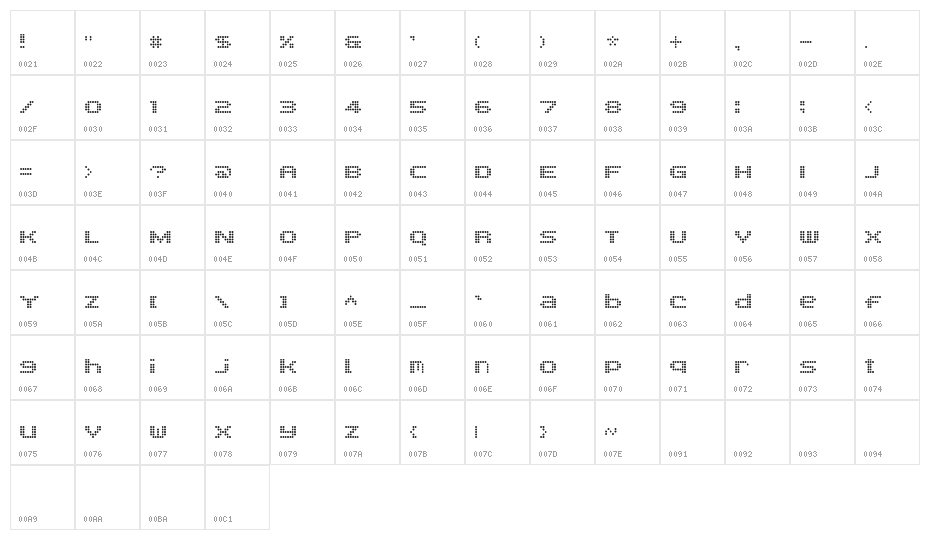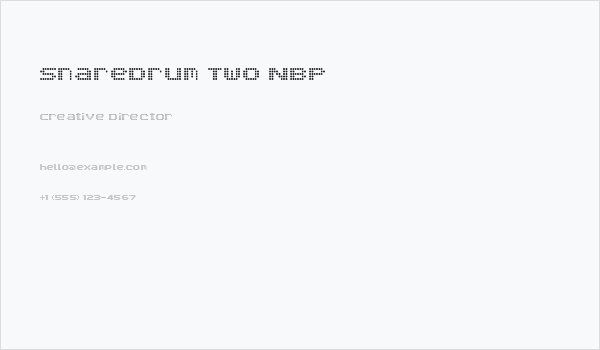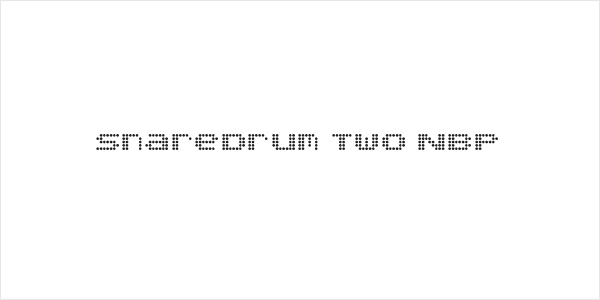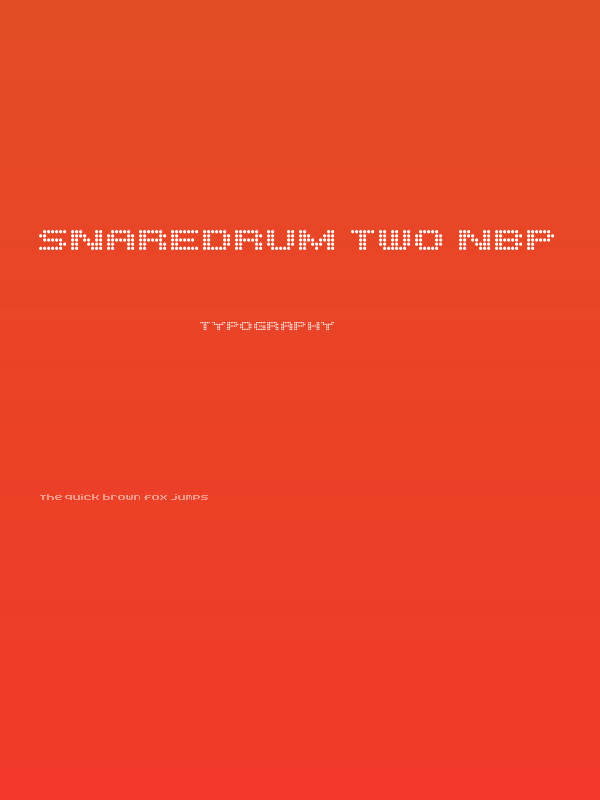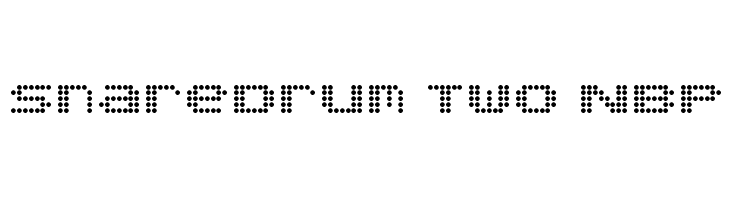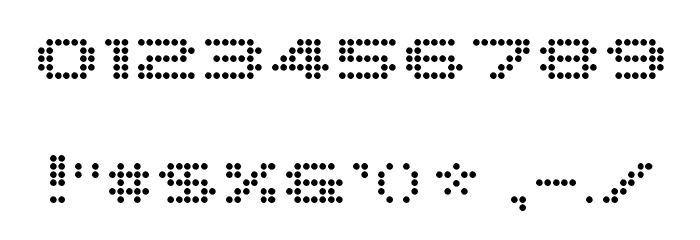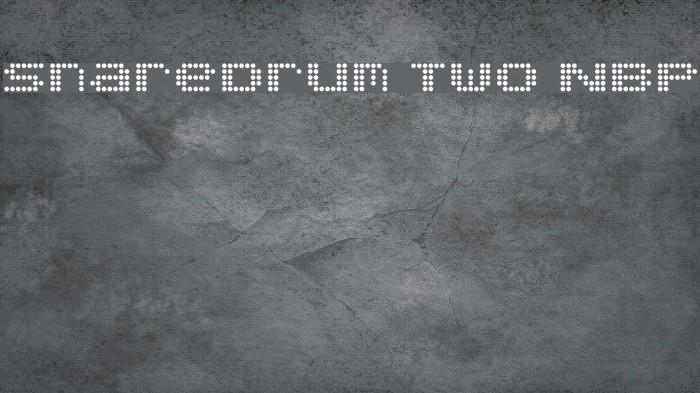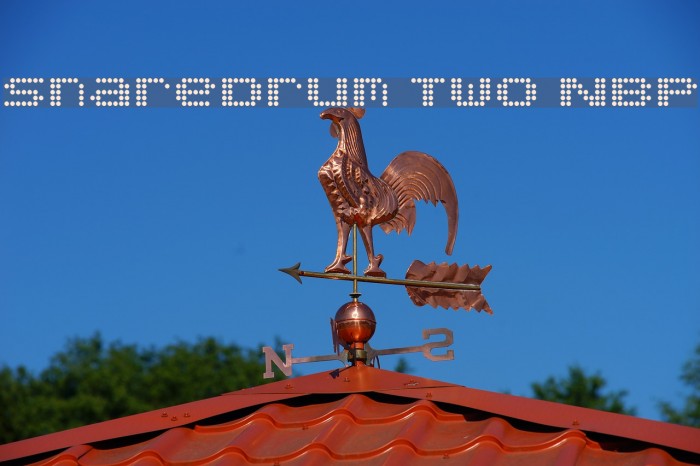
SnareDrum Two NBP Font
SnareDrum Two NBP Description
This font features a unique dotted design, where each character is composed of small, evenly spaced dots. The style is modern and playful, offering a distinct visual appeal that stands out in digital and print media. The uppercase and lowercase letters maintain a consistent structure, with rounded edges formed by the dots, creating a cohesive look. Numbers and special characters follow the same dotted pattern, ensuring uniformity across all glyphs. This font is ideal for projects that require a fun, eye-catching aesthetic, such as posters, digital graphics, and creative branding.
| Proposed Projects | Ideal for posters, digital graphics, creative branding, and any project needing a playful touch. |